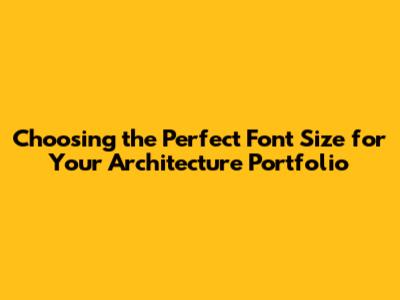
Hey there, architecture enthusiasts! So, you've poured your heart and soul into your architecture portfolio, filled with stunning designs and breathtaking concepts. But wait a sec... are you overlooking a crucial detail that can make or break your presentation? Yep, we're talking about font size! Choosing the right font size for your architecture portfolio is way more important than you might think. It's not just about aesthetics; it's about readability, professionalism, and ultimately, how effectively you communicate your ideas to potential clients or employers. Let's dive deep, shall we?
Why Font Size Matters in Your Architecture Portfolio
Alright, let's get down to brass tacks: why does font size in your architecture portfolio even matter? First and foremost, it's about readability. Think about it: if your text is too small, people will squint and struggle to read it. They'll get frustrated, and trust me, they won't spend much time admiring your work. On the flip side, if the font is too large, it can look clunky, unprofessional, and might even make your portfolio feel cluttered. Finding the sweet spot is key.
Then there's the element of professionalism. Your architecture portfolio is a direct reflection of your skills and attention to detail. A well-chosen font size (and consistent use of it throughout) shows that you care about the overall presentation. It shows that you understand the importance of clear communication. A haphazardly designed portfolio, on the other hand, with inconsistent font sizes and a general lack of typographic care, might send the wrong message to potential employers or clients. They might start questioning your attention to detail in your architectural projects as well.
Finally, the right font size enhances the visual hierarchy of your portfolio. By strategically using different sizes for headings, subheadings, body text, and captions, you can guide the reader's eye and highlight the most important information. This helps the viewer understand your work more effectively, making them more engaged and interested in your designs. It is the same as the architectural project itself, it must have hierarchy to communicate the importance of each item presented. Without a proper hierarchy, it is a bad design. And, of course, your goal is to land that dream job or impress a potential client, right? So, let's get into some specific recommendations and tips to help you nail that perfect font size for your architecture portfolio.
Recommended Font Sizes for Different Elements
Okay, let's break it down into some practical tips. Here's a general guideline on the ideal font sizes for different elements in your architecture portfolio. Keep in mind that these are suggestions, and you can always adjust them based on your specific layout, font choices, and personal preferences.
Headings
Headings are your attention grabbers! These are the titles of your sections, project names, and any other text that you want to stand out. For headings, aim for a font size between 24 and 36 points. This ensures they are easily noticeable without overwhelming the rest of your content. Think of it like this: your headings are the big, bold statements that immediately draw the reader's eye in.
Subheadings
Subheadings provide a bit more structure, breaking down your sections into smaller, digestible chunks. Use a font size somewhere between 18 and 24 points. This allows subheadings to stand out from the body text while still maintaining a clear hierarchy. This helps the reader navigate through your portfolio, understanding the order of information.
Body Text
This is where the bulk of your information resides – the descriptions of your projects, your design philosophies, and any other supporting text. For body text, the font size should be between 10 and 14 points. This is the optimal range for readability. You want the text to be large enough to read easily but small enough not to dominate the page. Remember, you want your portfolio to be a showcase of your designs, not a wall of text. The size helps create a sense of balance. Pay attention to line spacing and kerning as well.
Captions and Labels
Captions and labels are important for providing context to your images and drawings. Keep these a bit smaller than the body text, typically between 8 and 10 points. This helps them stay clearly associated with the visuals while maintaining a clear visual hierarchy. Remember, captions should complement the images, not distract from them.
Tips for Choosing the Right Font Size
Alright, now that we have some general guidelines, let's look at some specific tips to help you choose the ideal font sizes for your architecture portfolio.
Consider Your Font Choice
Not all fonts are created equal! Some fonts appear larger or smaller than others, even at the same point size. For instance, a font like Arial often appears larger than a font like Helvetica at the same size. Experiment with different fonts to see how their sizes look within your portfolio's layout. A good idea is to choose a few versatile fonts that complement your overall design aesthetic, and then adjust the sizes accordingly. Test them out, play around, and see which ones work best for you!
Test Your Portfolio on Different Devices
Your portfolio will likely be viewed on a variety of devices, from desktop computers to tablets and smartphones. Make sure to test your portfolio on different devices to ensure the text is readable across all platforms. What looks great on a large monitor might be too small on a phone. The goal is to make your portfolio accessible to anyone, anywhere, so you want to ensure the text is clear on all platforms.